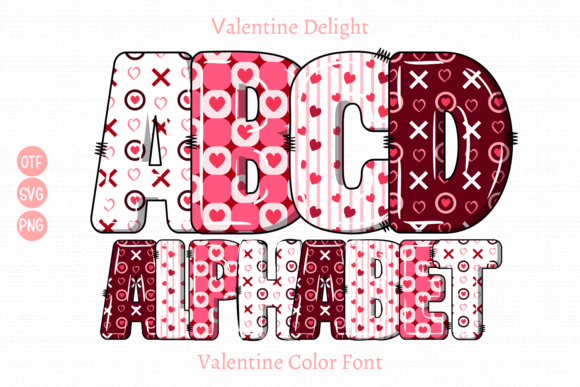
Unleash the Charm of Valentine Delight Font: Elevate Your Designs with Vibrancy and Authenticity
Are you looking for a font that can add a touch of vibrancy and genuineness to your creative projects? Look no further than Valentine Delight, a stunning color font that is sure to take your designs to the next level. In this article, we’ll explore the features and benefits of Valentine Delight, and show you how to incorporate it into your design initiatives to give them a delightful edge.
What is Valentine Delight Font?
Valentine Delight is a vibrant color font that is designed to add a touch of charm and personality to your designs. With its unique color scheme and playful style, it’s perfect for creating eye-catching blog posts, logos, branding materials, adverts, and more. Whether you’re a designer, artist, or DIY enthusiast, Valentine Delight is the perfect font to help you express your creativity and bring your ideas to life.
Features of Valentine Delight Font
So, what makes Valentine Delight so special? Here are just a few of its key features:
• Vibrant Color Scheme: Valentine Delight is a color font that features a range of bright and bold colors, making it perfect for creating eye-catching designs that stand out from the crowd.
• Playful Style: The font has a playful and whimsical style that’s perfect for creating designs that are fun, youthful, and energetic.
• Versatility: Valentine Delight can be used for a wide range of design projects, from blog posts and logos to branding materials and adverts.
• Personal Touches: The font is also perfect for creating personal touches like bespoke invitations, greeting cards, planners, photo albums, and decorations.
Benefits of Using Valentine Delight Font
So, why should you choose Valentine Delight for your design projects? Here are just a few benefits of using this amazing font:
• Adds a Touch of Personality: Valentine Delight adds a touch of personality and whimsy to your designs, making them stand out from the crowd.
• Effortless Creativity: The font makes it easy to create designs that are creative, fun, and engaging.
• Versatile: Valentine Delight can be used for a wide range of design projects, making it a great addition to your font library.
• Experiment with Colors: One of the best things about Valentine Delight is its color scheme. Experiment with different colors and combinations to find the perfect look for your design.
Valentine Delight is a vibrant and playful color font that’s perfect for adding a touch of personality and whimsy to your designs. With its versatility, ease of use, and stunning color scheme, it’s the perfect addition to your font library. Whether you’re a designer, artist, or DIY enthusiast, Valentine Delight is sure to take your designs to the next level.